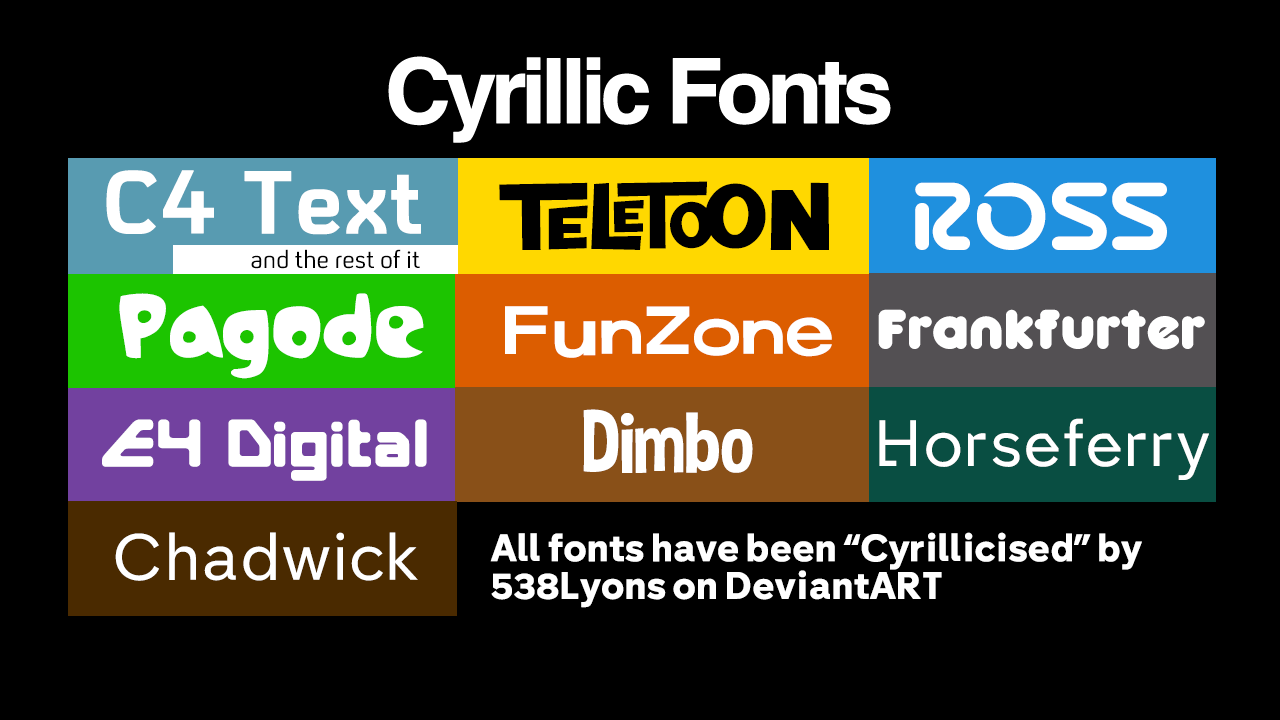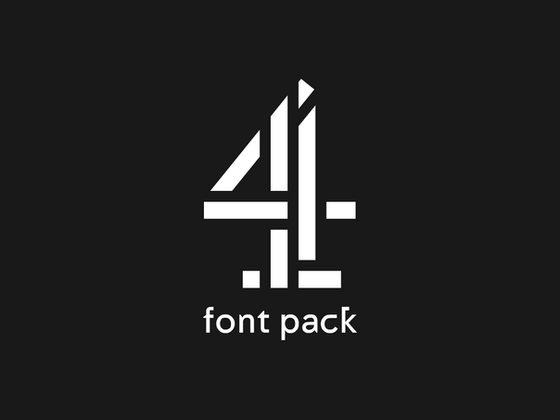
DLEDeviant — C4 Text Font Family
I'd like to say that C4 Headline is often used for several projects of Channel 4. Now, here is the C4 Text font family uploaded to my dA.